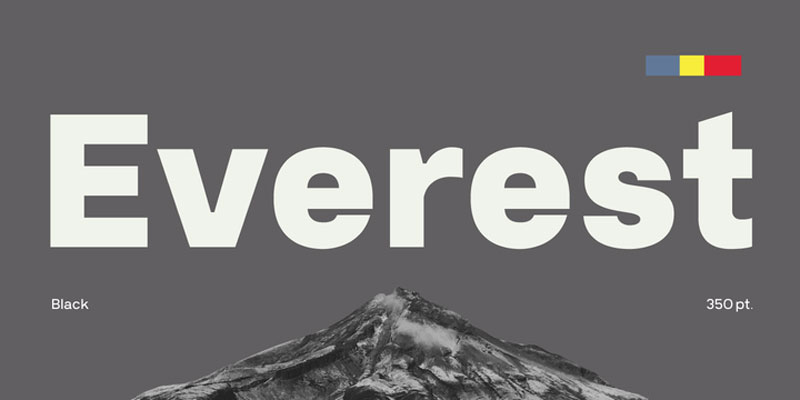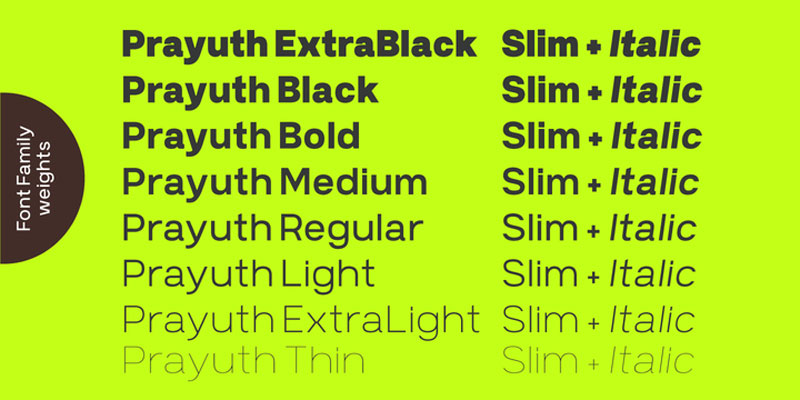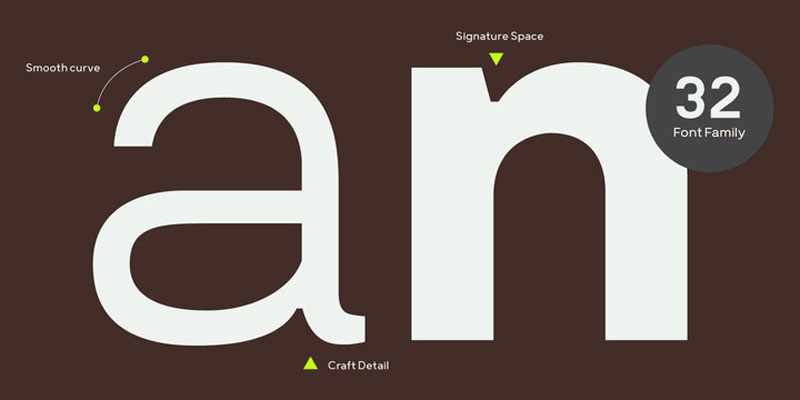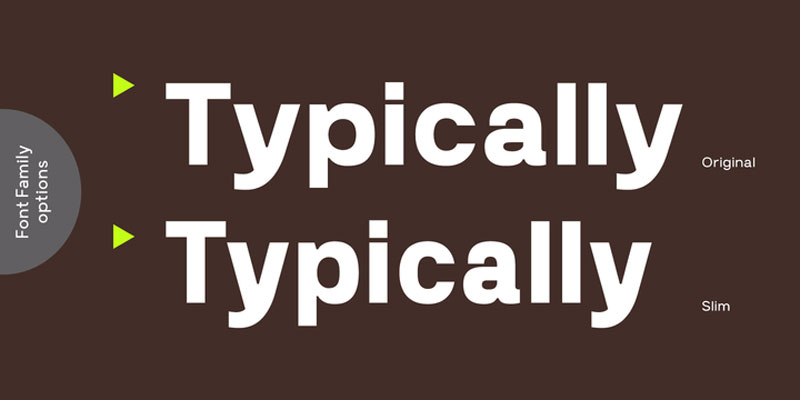
Prayuth Font Family
Introducing the Myfonts – Prayuth Font Family. Prayuth is a contemporary sans-serif typeface made up of 32 fonts across 8 weights with normal and slim options. It’s a unique and modern sans typeface, which is well suited for a variety of typographic applications such as headlines and small texts. The Prayuth font family supports multiple languages and is available as both Webfont and desktop font.